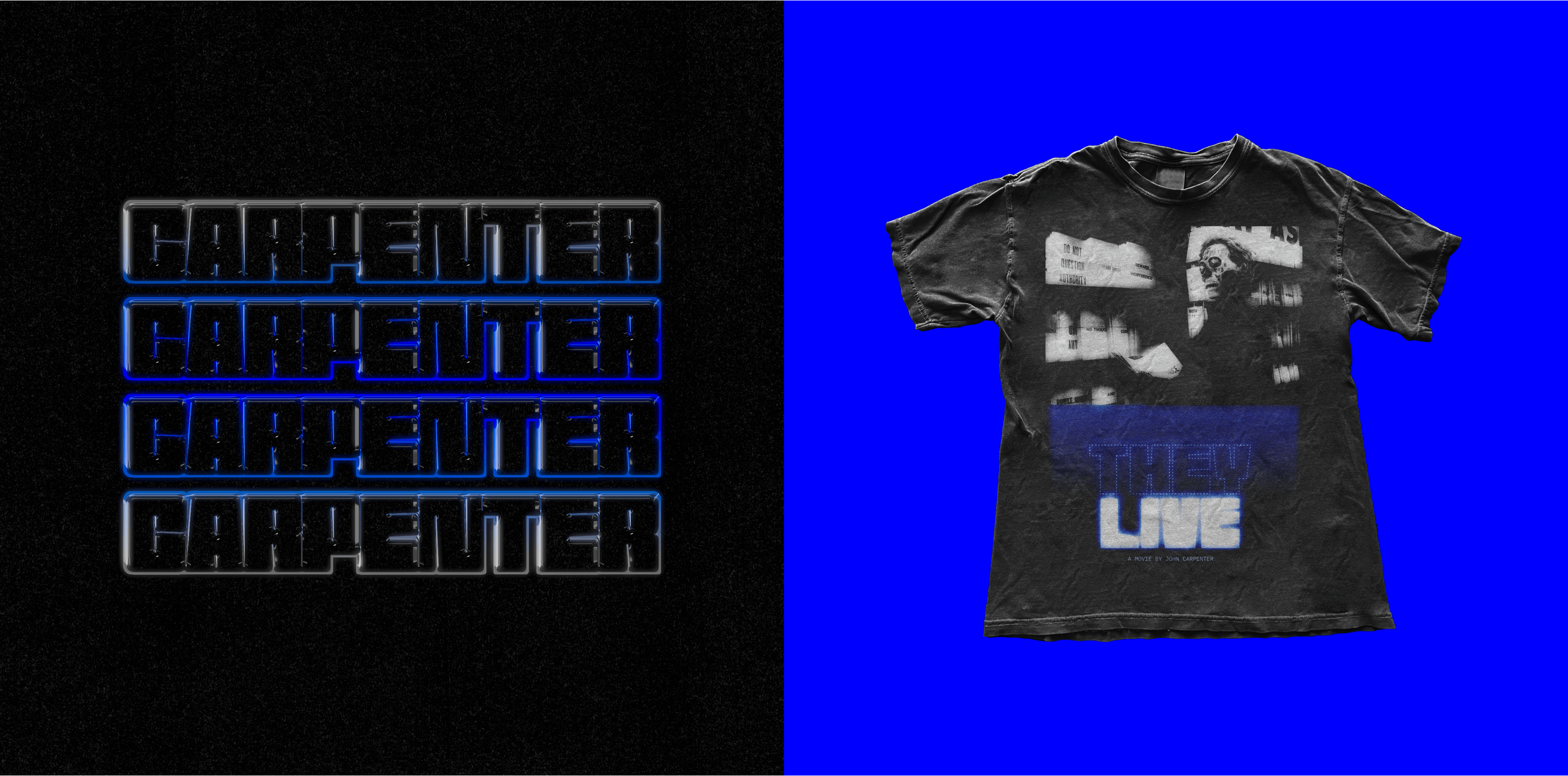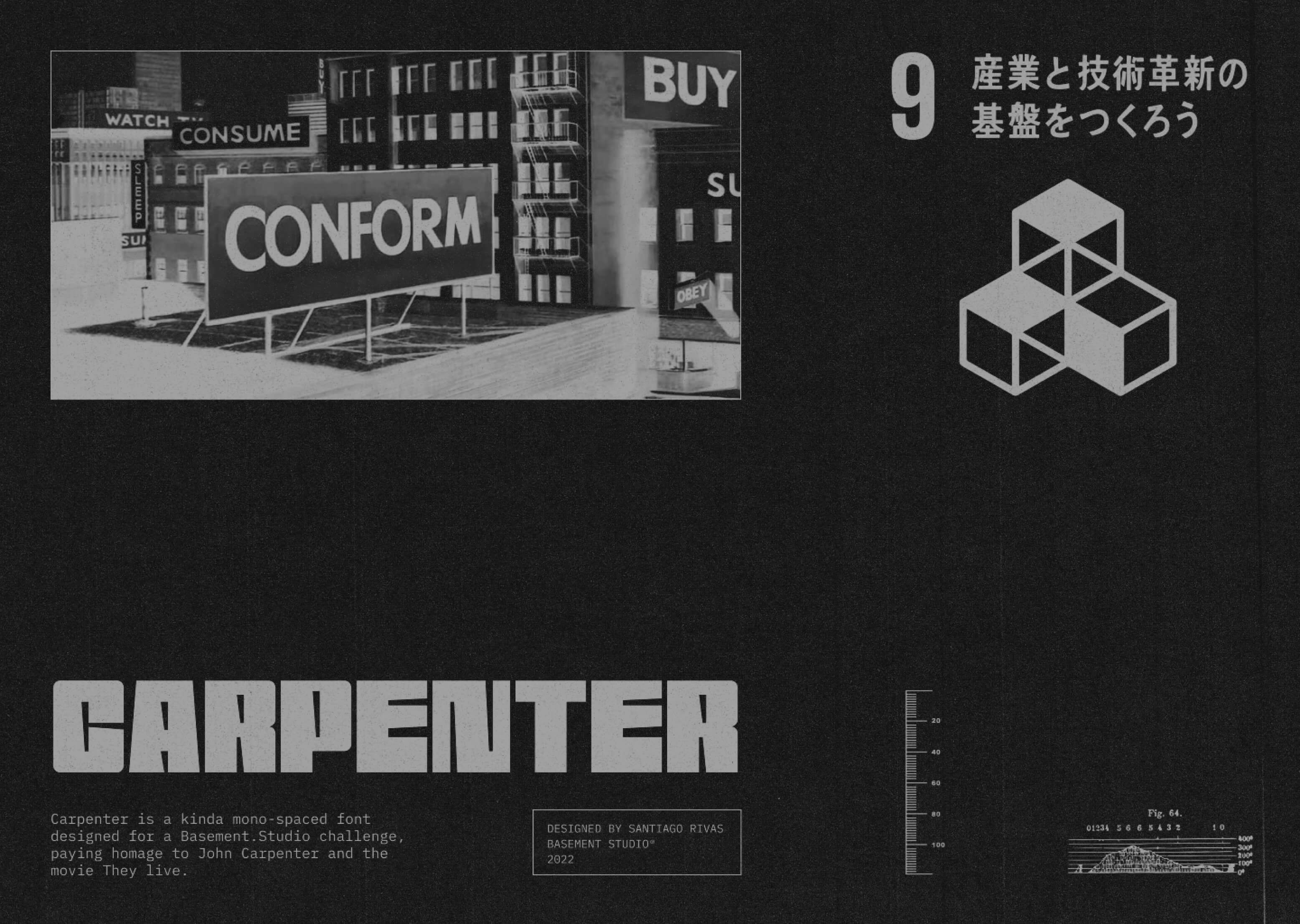
The boldest semi-mono & modular display font intended for big-sized headlines which pays homage to the great John Carpenter and his glorious movie 'They Live'.
Carpenter
DescriptionA bold semi-mono & modular display font intended for big-sized headlines which pays homage to the great John Carpenter and his glorious movie 'They Live'. In a single-case font, the letterforms are constructed following a strict grid while the counters are created freely opposing the rigid structure that contains them.